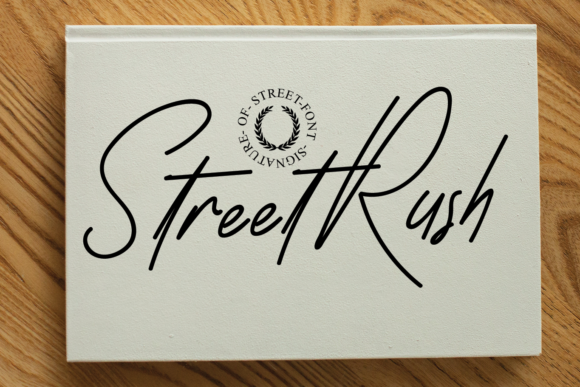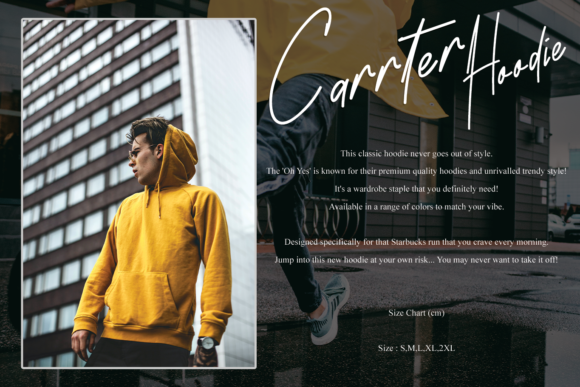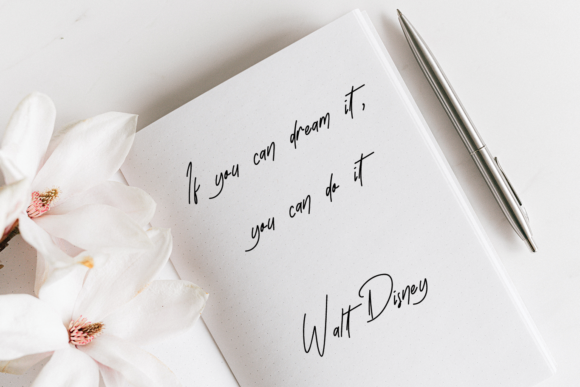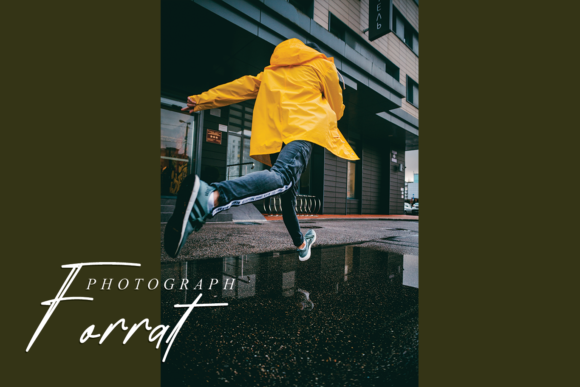
Street Rush Font
About the Street Rush Font
Meet Street Rush Font, a stunning font that brings a touch of elegance and professionalism to any design. Street Rush feels equally charming and elegant. It looks stunning on wedding invitations, thank you cards, quotes, greeting cards, logos, business cards, and every other design which needs a handwritten touch.
Street Rush Font Usage Examples
Street Rush Font Example